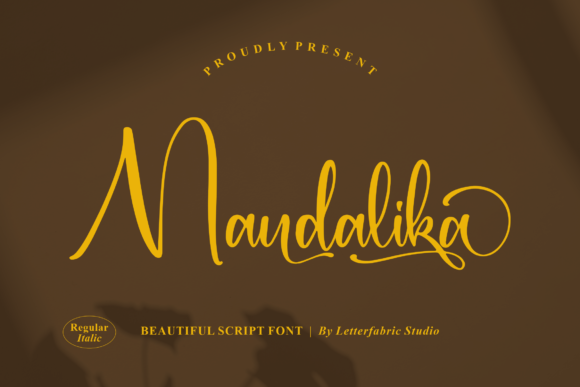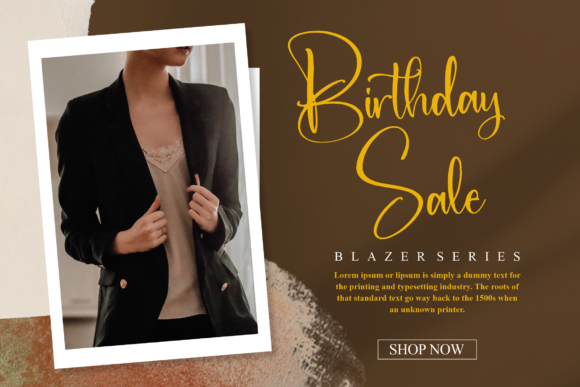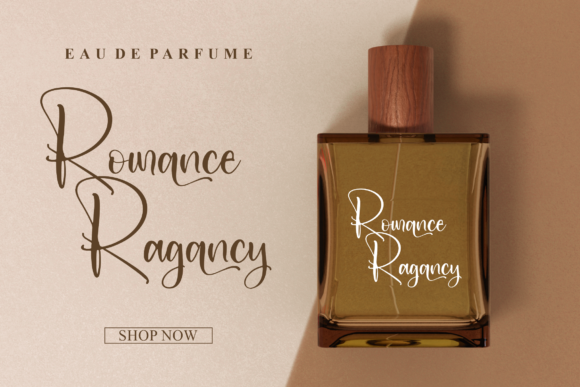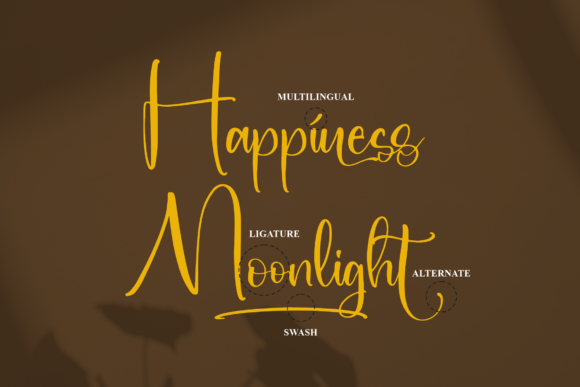
About Mandalika Font
Mandalika is suitable for any projects such as: logos, branding projects, homeware designs, product packaging, mugs, quotes, posters, shopping bags, t-shirts, book covers, name cards, invitation cards, greeting cards, labels, photography, watermark, special events, and all your other lovely projects that need a beautiful script taste.